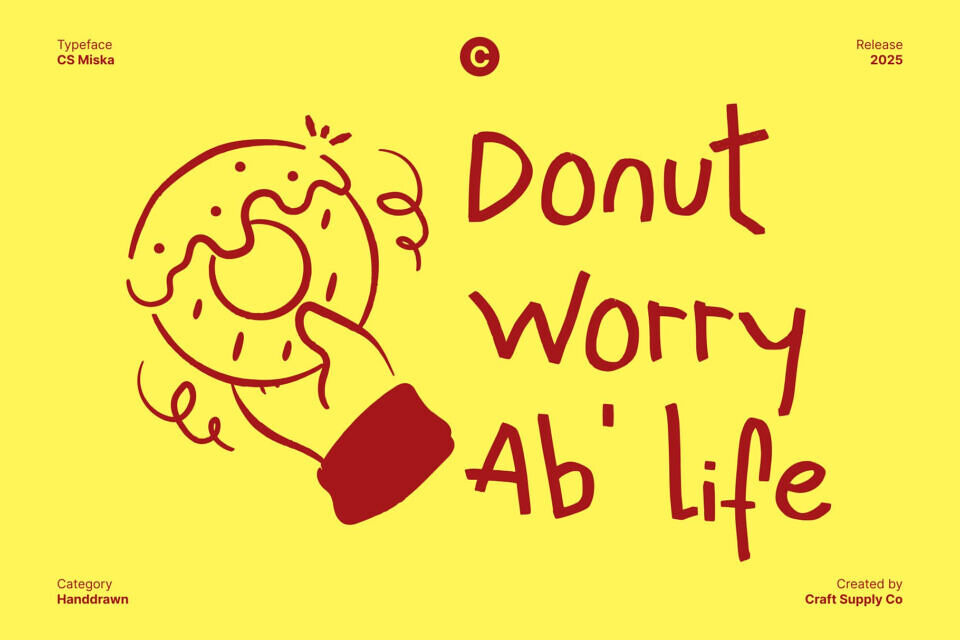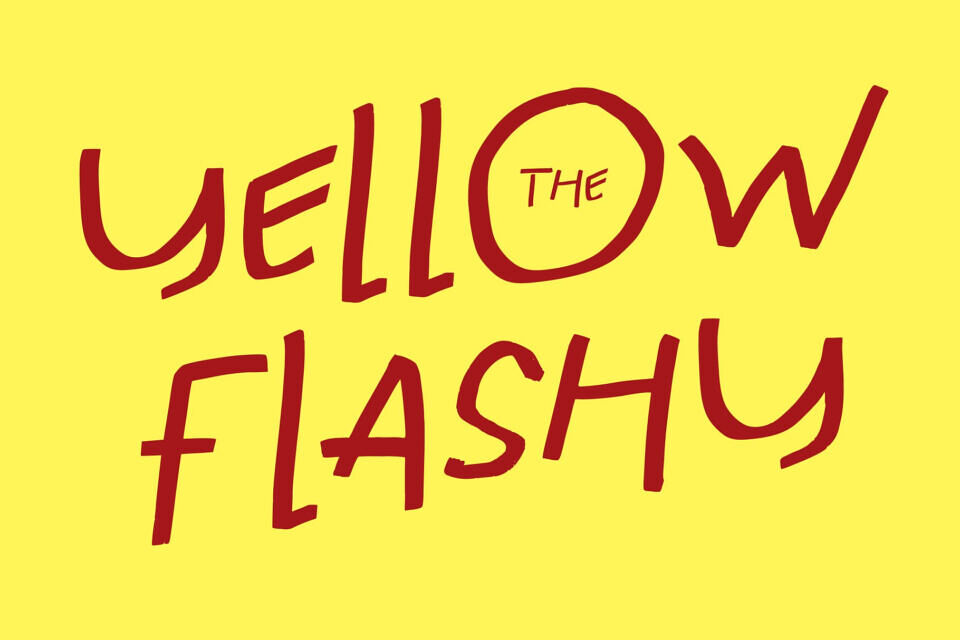
Miska is a gritty, playful display font designed with irregular, scribbled strokes that capture a sense of spontaneity and fun. Its freely drawn style gives each character a unique personality, perfect for designs that want to feel lively, casual, and expressive.
The messy and uneven forms of this font create a raw, handcrafted feel, ideal for projects where a relaxed, quirky vibe is desired. This feature makes it suitable for children’s designs, playful posters, or experimental branding that breaks from conventional typography.